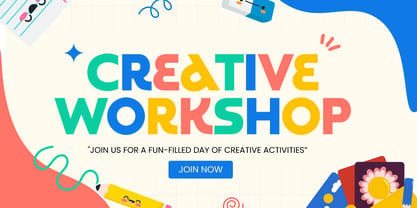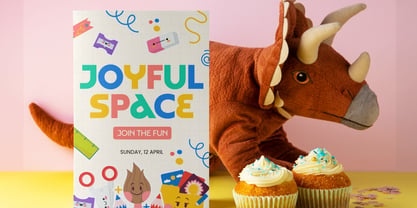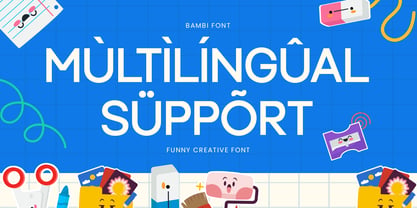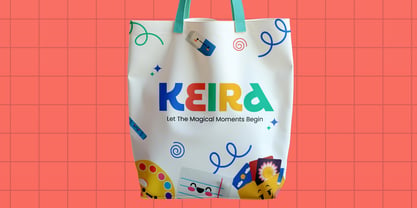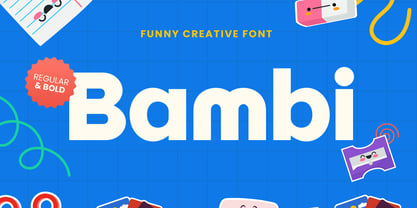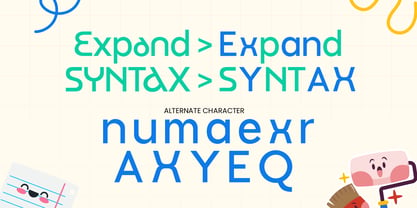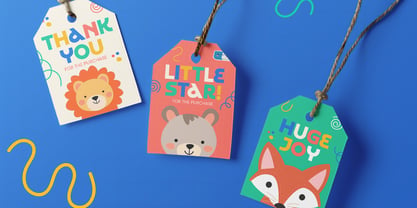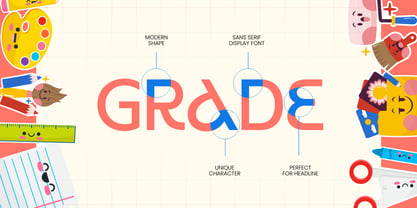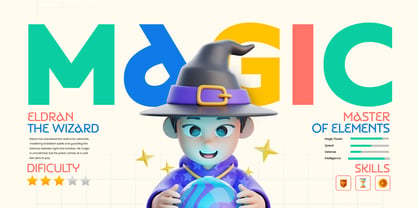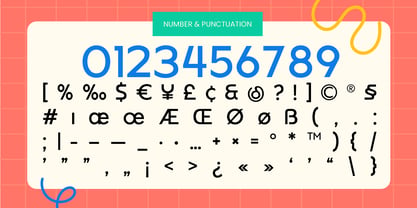
Kalcer - Funny Creative Font
Kalcer is a funny and creative font designed to sprinkle a little chaos (the good kind) into your branding. With its bubbly shapes, lively curves, and unpretentious personality, Kalcer is perfect for children’s books, fun product packaging, creative logos, and marketing materials that don’t take themselves too seriously. (We believe your audience deserves a giggle before they even read your message.)
The font’s whimsical letterforms strike the ideal balance between being unmistakably playful and effortlessly readable — making it a true champion for those who want their design to shout, "Hey, look at me!" without actually shouting. It’s perfect for brands aiming to stand out with humor, energy, and vibrant life.
Elevate your designs with Kalcer, the font equivalent of a double-scoop ice cream on a summer afternoon — unforgettable, delightful, and a little bit messy (in the best way).
Kalcer – Funny Creative Font Features
Playful and bold creative letterforms
Ready with Regular and Bold Version
Ideal for kids branding, comic projects, fun packaging, and casual design
Punctuation, numbers, and symbols included
Uppercase and lowercase letters
OpenType features for extra playful alternates
Why settle for boring when you can dance across the page with Kalcer — a font where every letter is a little celebration?
Turn every project into a party. Pick Kalcer and let’s get creative! 🎈🎨